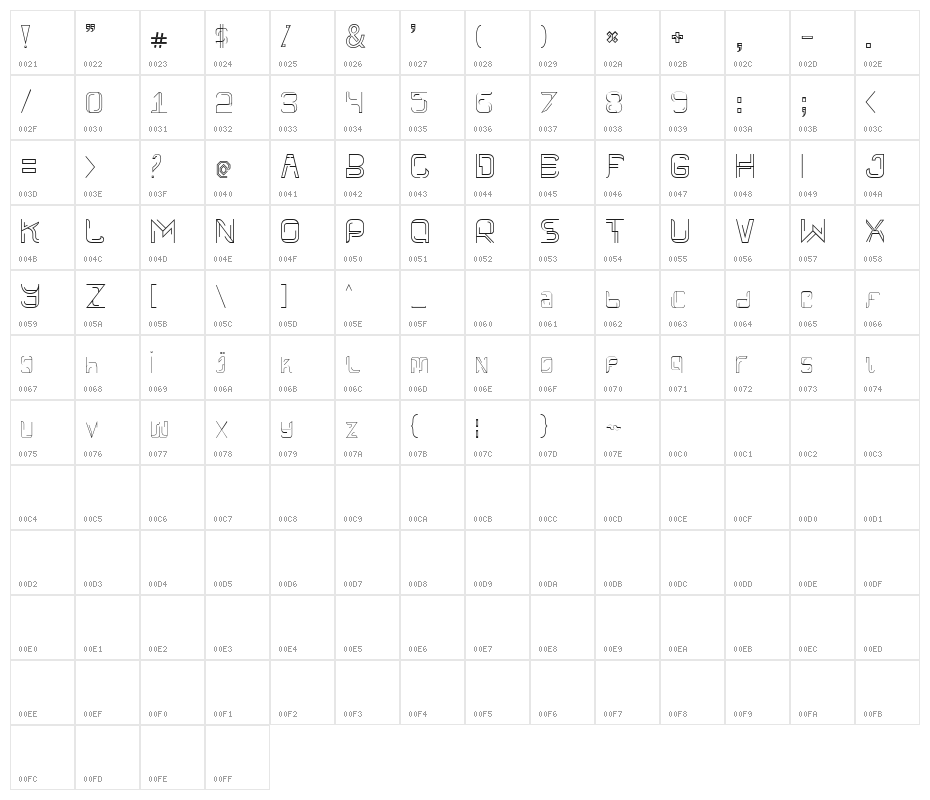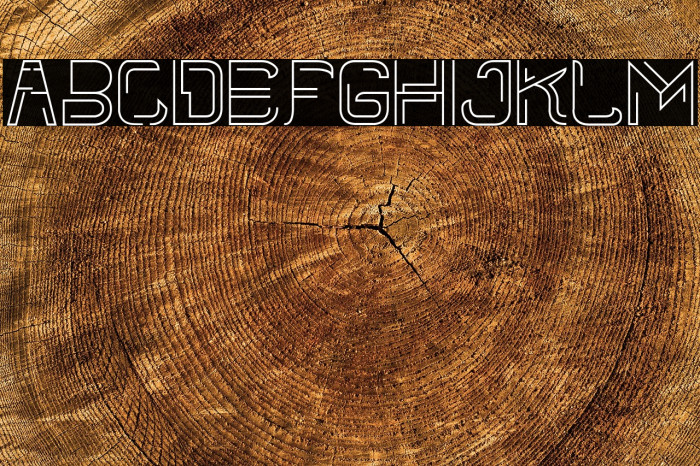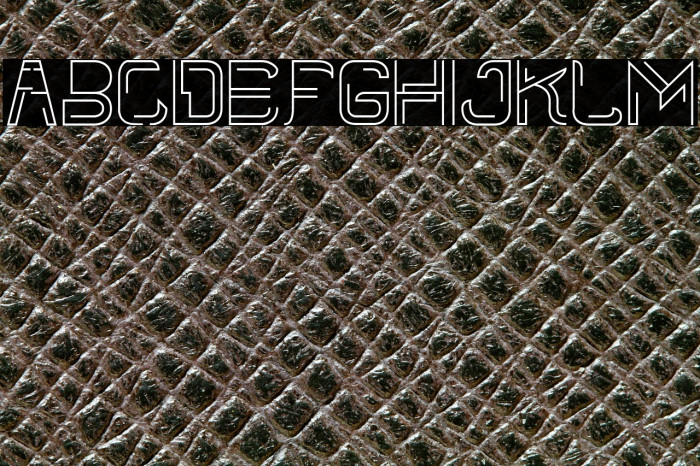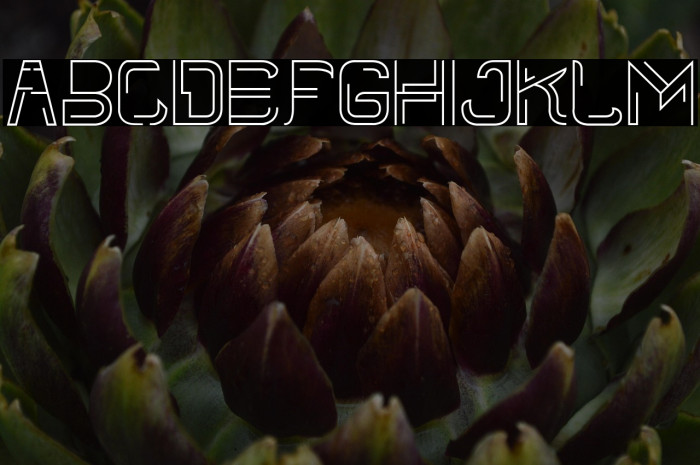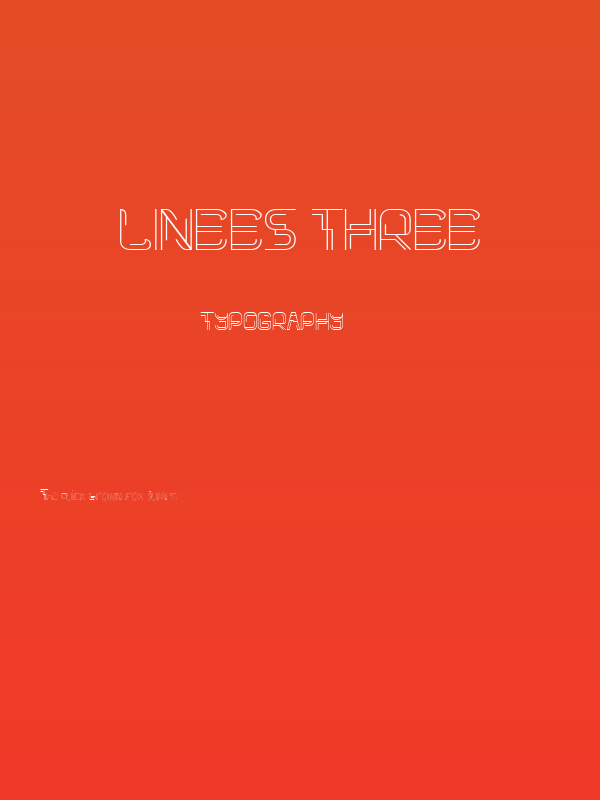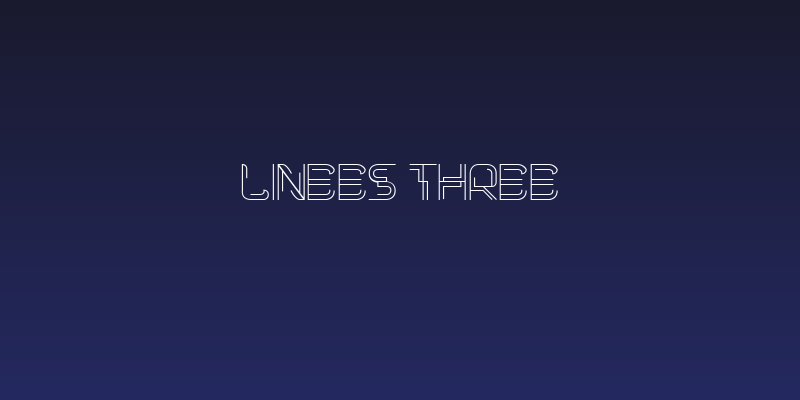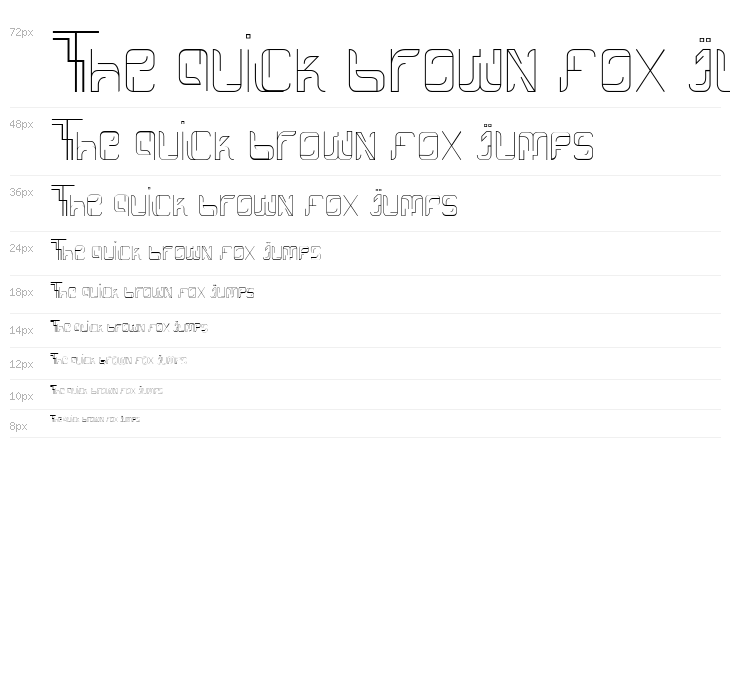
Linees Three Font
Linees Three Description
This font features a modern, geometric design with a unique, outlined style. Each character is constructed with clean, straight lines and sharp angles, giving it a futuristic and technical appearance. The uppercase and lowercase letters maintain a consistent height, creating a uniform look across the alphabet. The numerals and special characters follow the same design principles, ensuring cohesion throughout. This font's open, airy structure makes it stand out, while its precise lines convey a sense of sophistication and innovation.
| Proposed Projects | Ideal for tech branding, futuristic designs, digital interfaces, and modern art projects. |